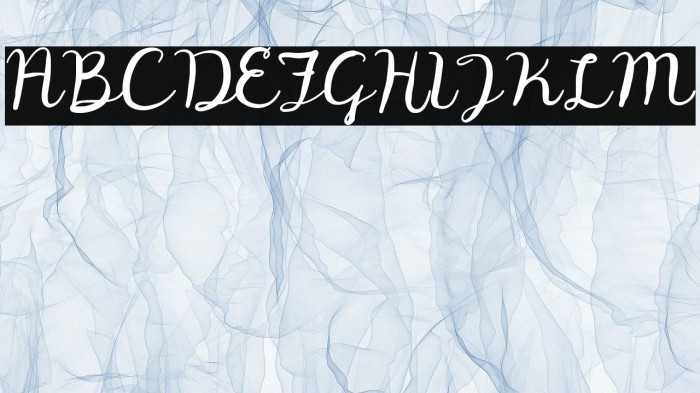
Digory Doodles Font
Digory Doodles Description
This font exudes a playful and whimsical charm, characterized by its fluid, cursive style. The letters are connected in a smooth, flowing manner, giving it a handwritten appearance. The uppercase letters maintain a consistent height, while the lowercase letters exhibit a slight variation in size, adding to its casual and friendly feel. The numerals are distinct and easy to read, complementing the overall style. Special characters are creatively designed, maintaining the font's cohesive look. This font's lively and informal nature makes it ideal for projects that require a personal touch.
A playful, cursive font with a whimsical, handwritten style from Uncategorized fonts.